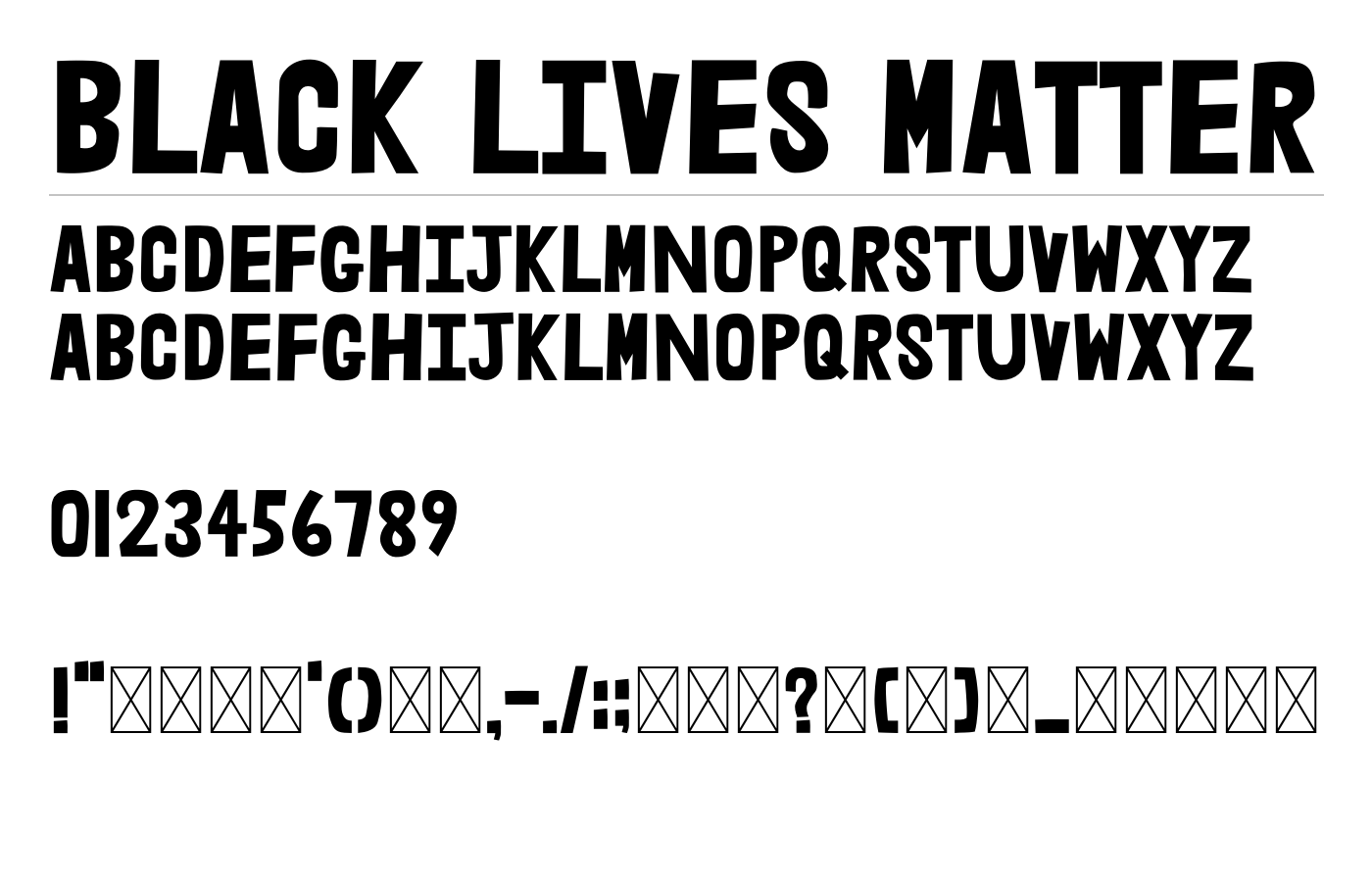
Black Lives Matter Font is a bold, condensed sans serif typeface with a strong, hand-crafted feel. Its tall, slightly irregular letterforms create an impactful and expressive presence, perfect for striking headlines, posters, and branding that demands attention and conveys urgency. This font works well in activist and social justice contexts where clear, powerful communication is essential.
Black Lives Matter Font
About Black Lives Matter Font
| Font family | Black Lives Matter Font |
| Designer | Activists |